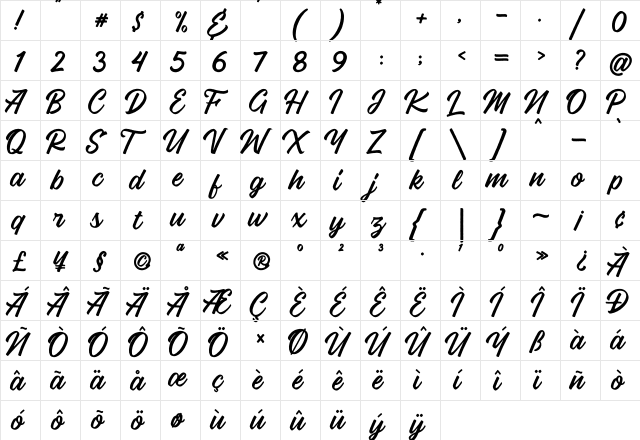
Vigrand Reg Rough Reg-Rough
Design Context for Vigrand Reg Rough Typeface
Vigrand Reg Rough trades polish for personality, using distressed and eroded forms to bring grit and attitude to creative work.
Suited to punk-influenced zines, underground music branding, streetwear, and raw, anti-corporate design.